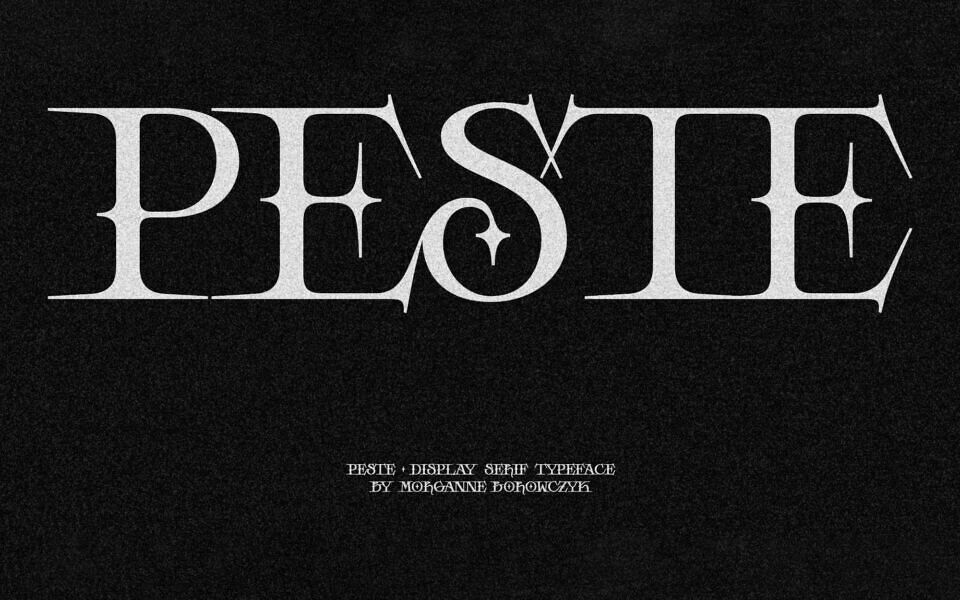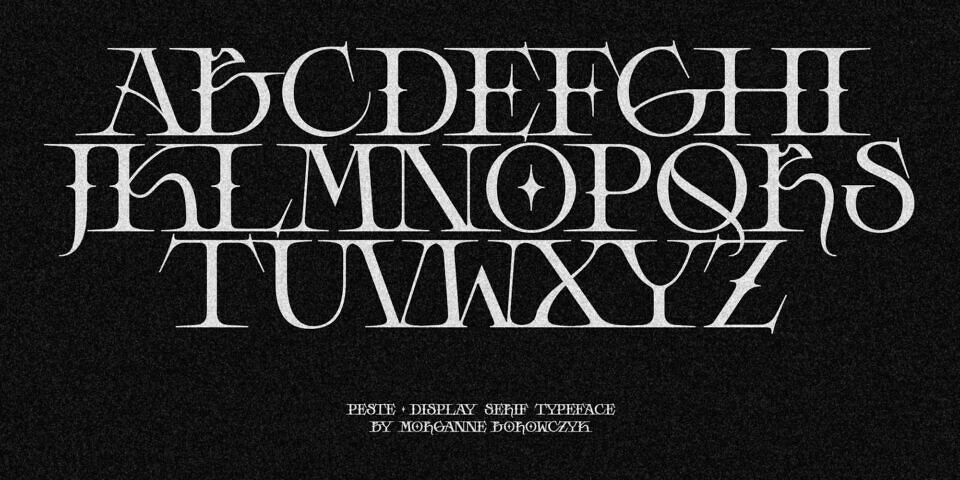
Peste Font
Peste (“plague” in French) is a typeface featuring sharp serifs and elegant curves. Inspired by Medieval art and heroic-fantasy, this typeface is perfect for big titles on posters, album art, t-shirts, book covers and more.
Designed by: Morganne Borowczyk